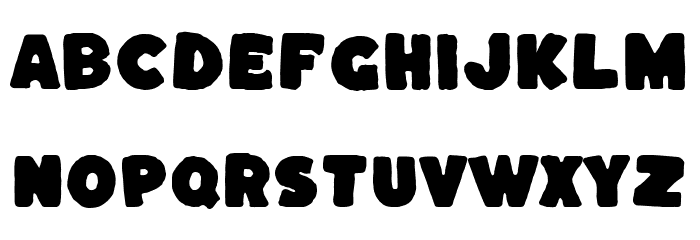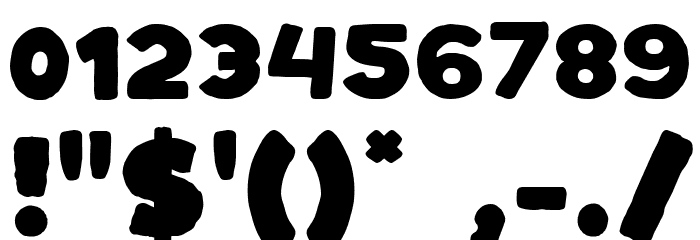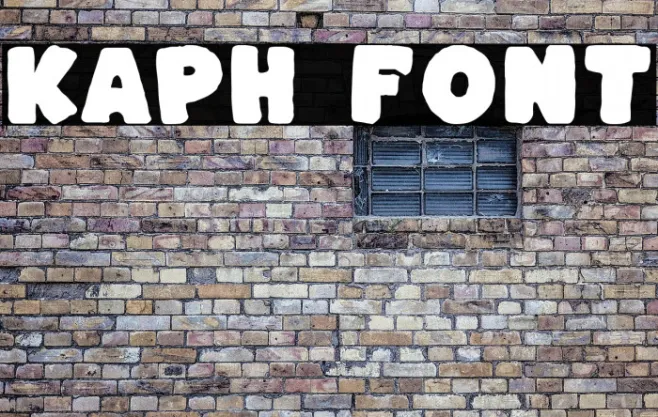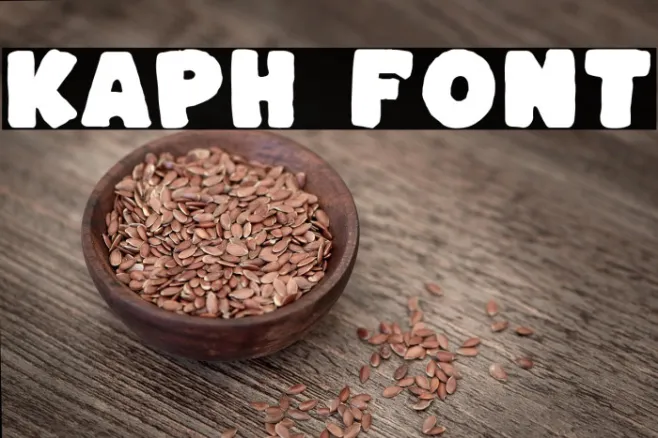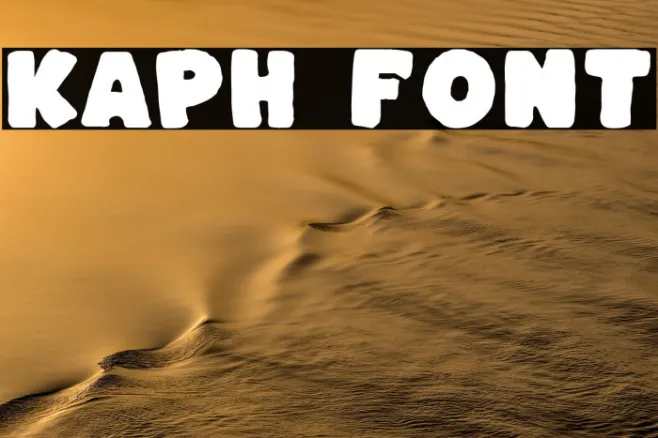
Kaph Font
This font features bold, rounded characters with a playful and chunky appearance. The letters are uniformly thick, giving them a strong presence on the page. The rounded edges and slightly irregular shapes add a whimsical touch, making it suitable for informal and creative projects. The numbers and special characters maintain the same bold and rounded style, ensuring consistency across all glyphs. This font's design is eye-catching and commands attention, making it ideal for headlines and display purposes.
A bold, rounded font with a playful and chunky style.
- Proposed Projects: Ideal for children's books, playful branding, posters, and creative advertising.
- Overall Style: Playful